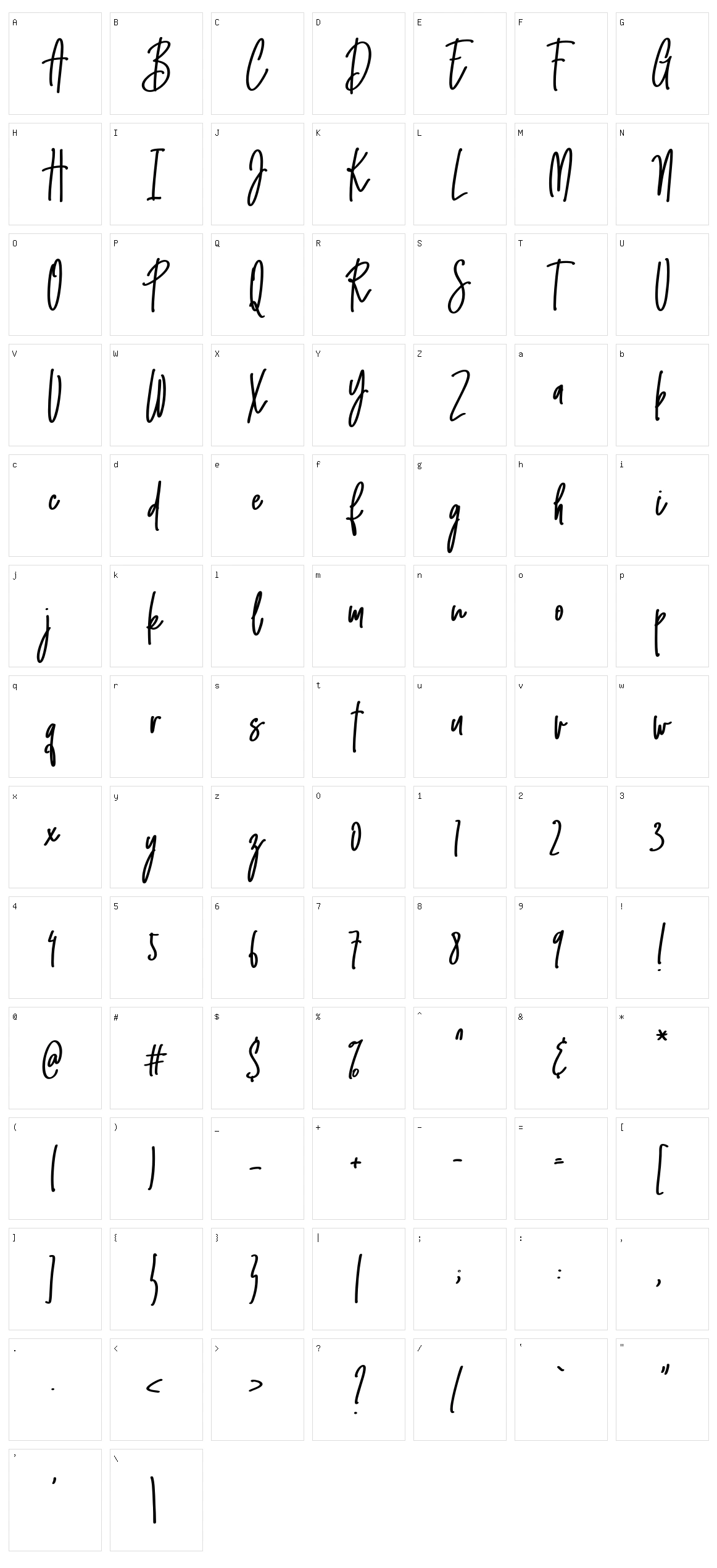
The free font Emma Signature is carefully designed by Ink creative, showcasing a thoughtful balance of creativity and usability and falls under the Script font style. When you download the ZIP file, it contains only 123.77 KB of font files, making it lightweight and quick to download. Please review the license details below to understand permitted usage and distribution rights. If license information is not available, we recommend using this font for personal projects only or contacting the author directly for commercial usage permissions.